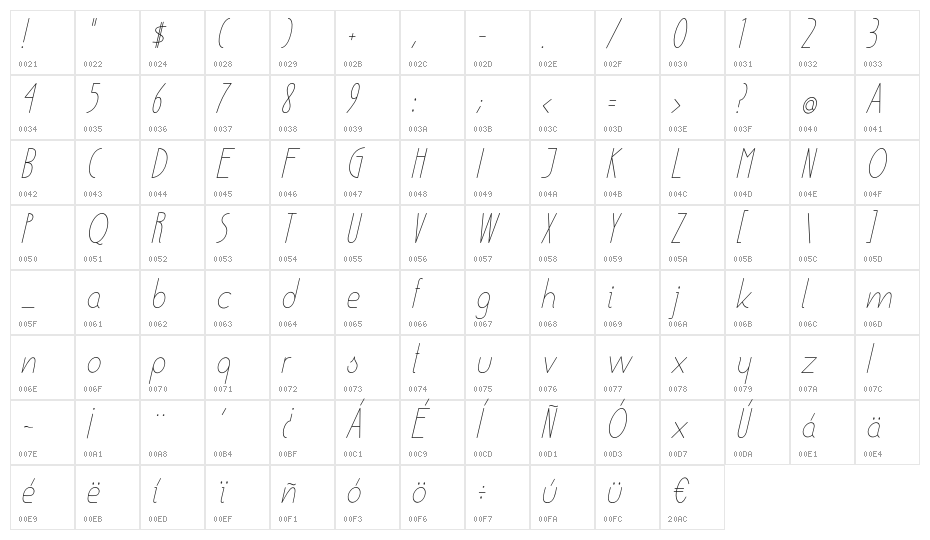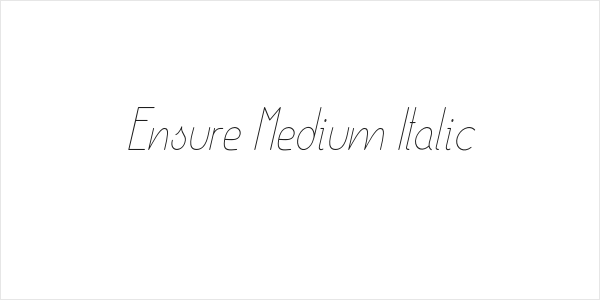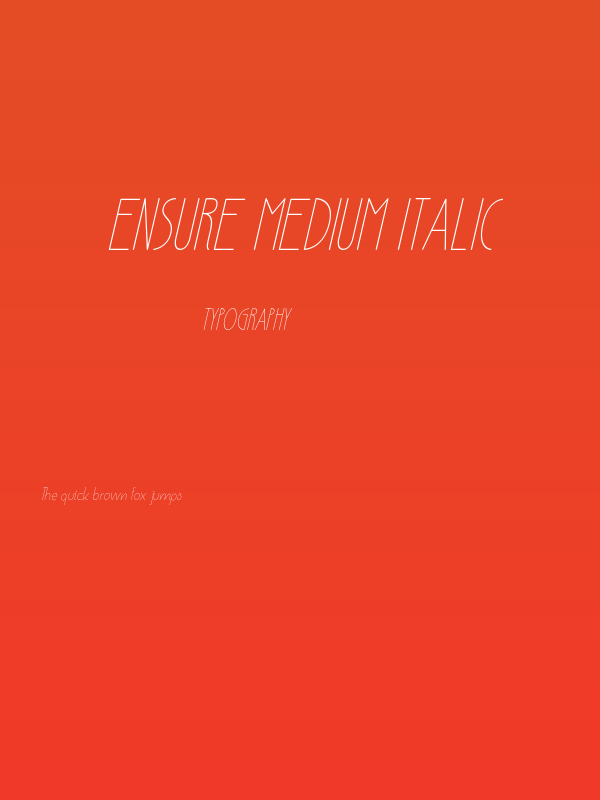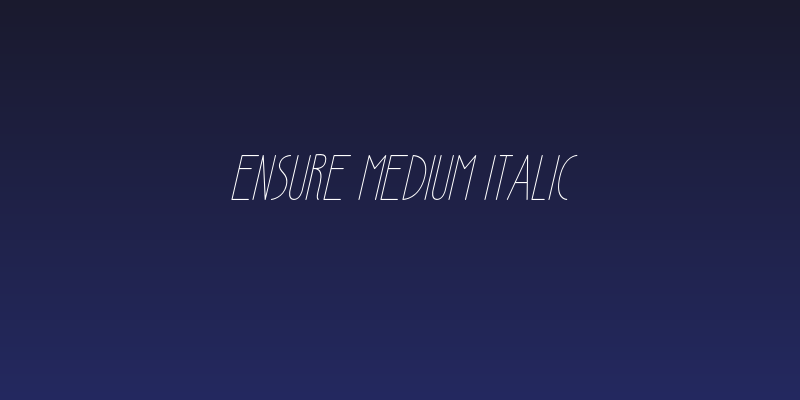
Ensure Medium Italic Font
Ensure Medium Italic Description
This font features a sleek and elongated design with a distinct italic slant, giving it a sense of motion and elegance. The characters are thin and delicate, with a consistent stroke width that maintains a clean and modern appearance. The uppercase letters are tall and narrow, while the lowercase letters maintain a similar style, ensuring uniformity across text. The numerals are aligned with the overall style, offering a cohesive look. Special characters are included, maintaining the same slender and italicized form. This font is ideal for projects that require a touch of sophistication and modernity.
| Proposed Projects | Ideal for fashion magazines, luxury branding, elegant invitations, and modern web design. |